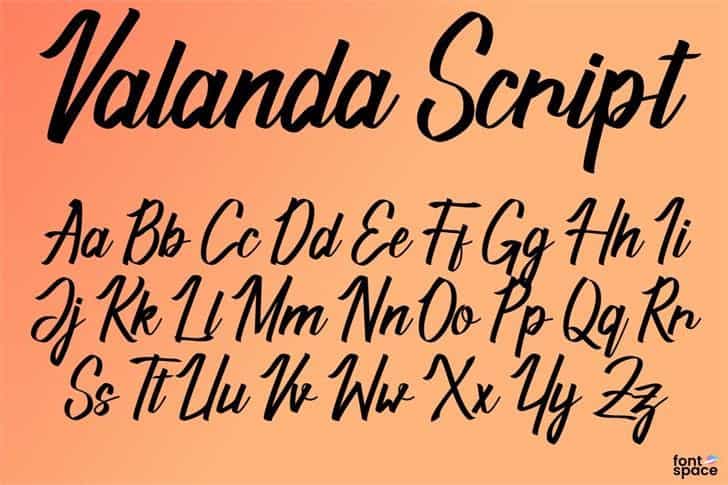
Discover Valanda Font, part of the Brush Handwritten collection—a versatile and unique font perfect for adding a personal touch to your projects. Download it for free and enjoy crafting designs with style, from invitations to social media posts. This font is available exclusively for personal use, giving you the freedom to create without limits. Unlock your creativity with Valanda Font today!